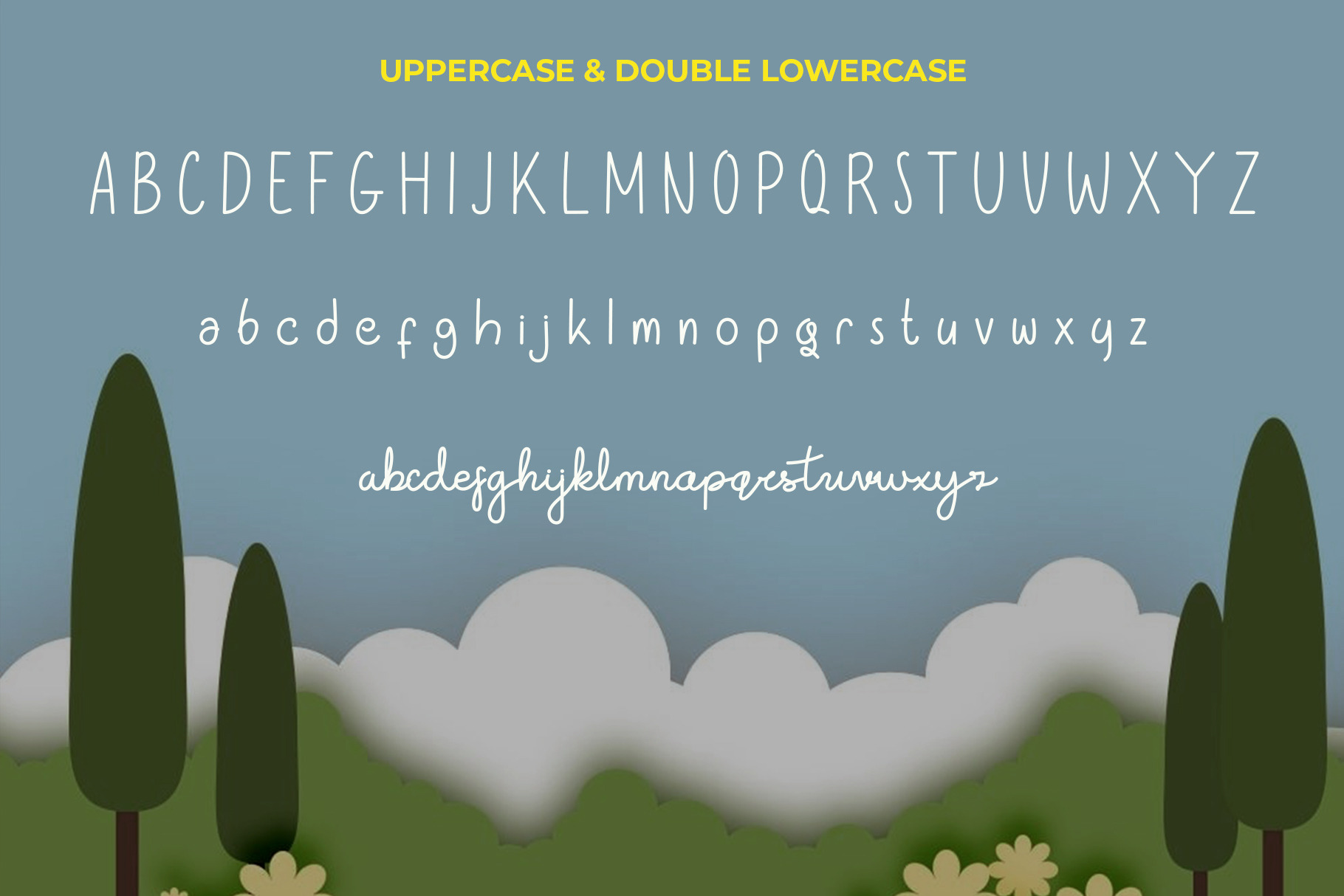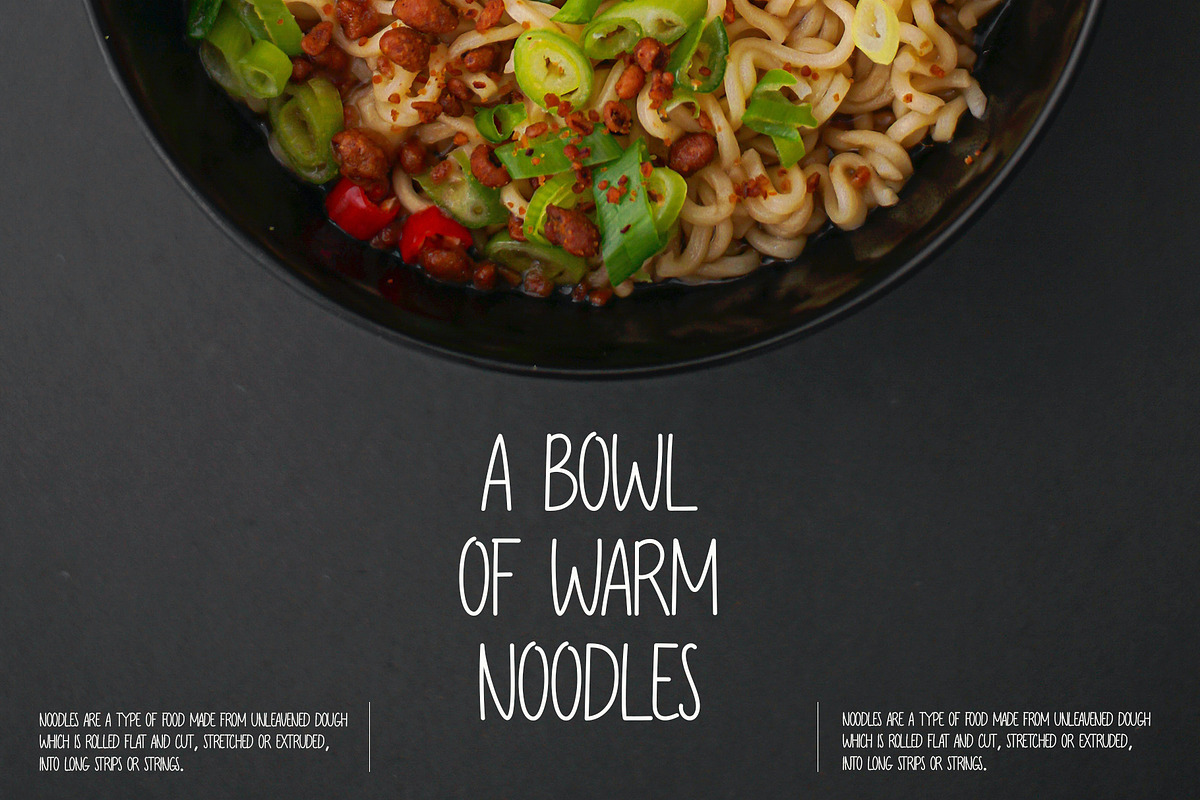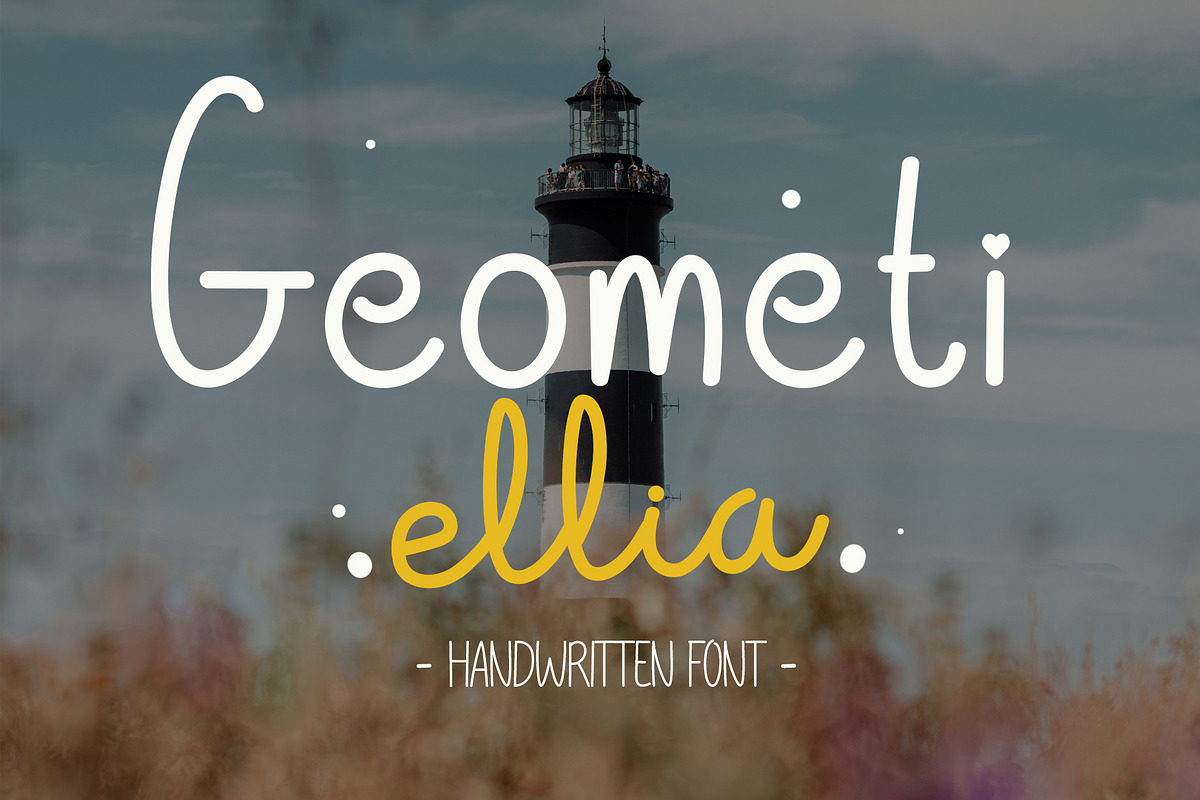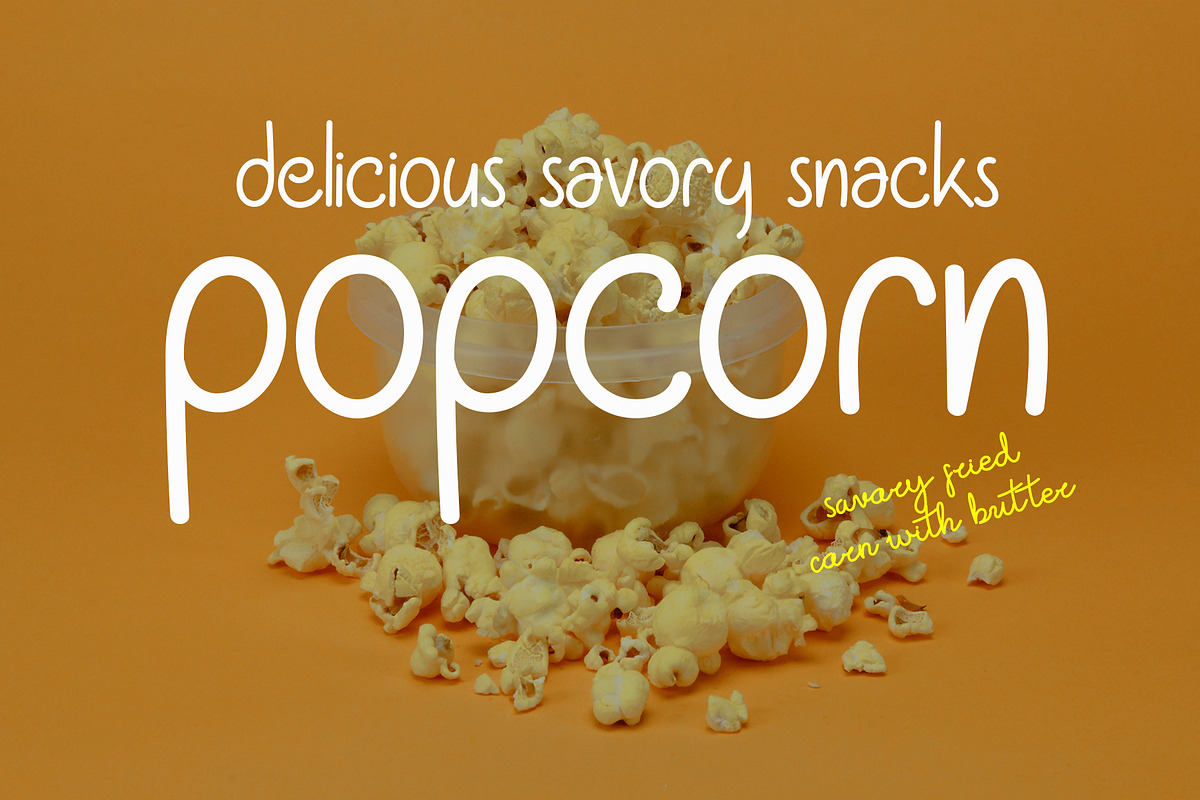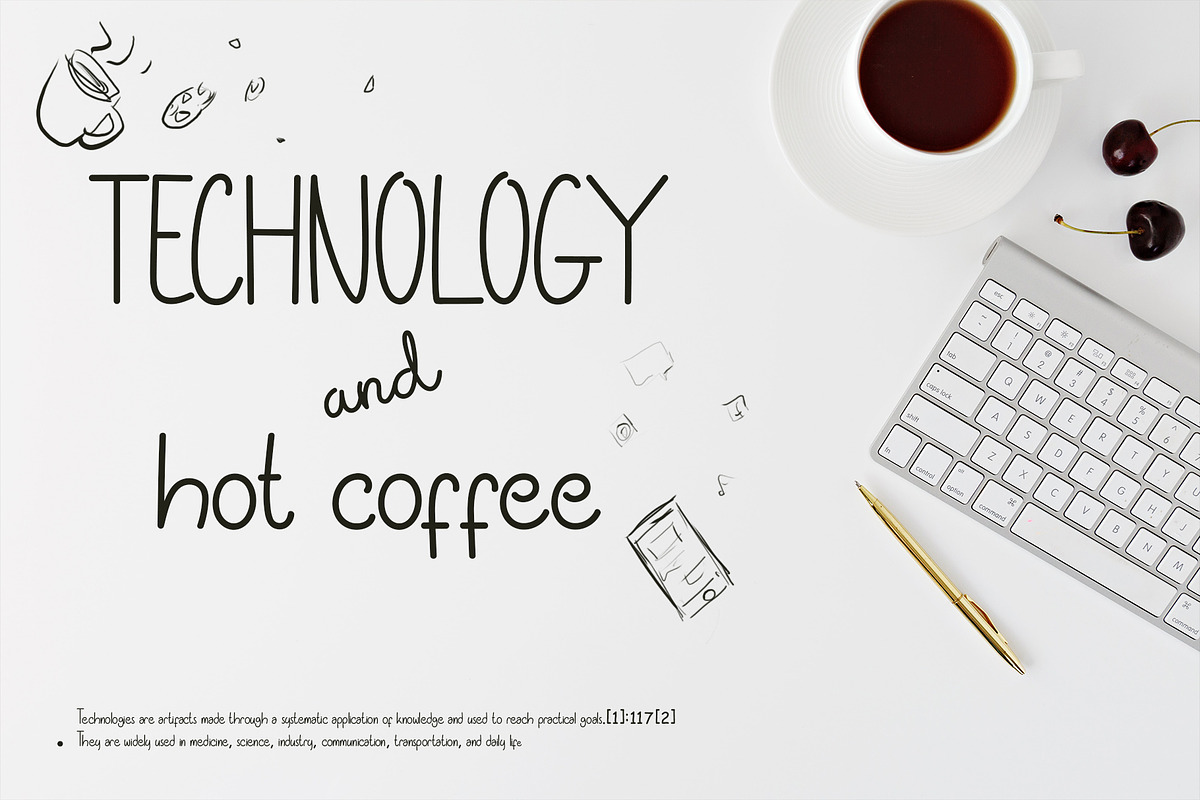
Geometi Ellia - Dual Handwritte Font
Introducing Geometi Ellia, a dual font with handwritten and script style. So perfect for you who needs a typeface for logo designs, magazine, social media, brochure, and many more.